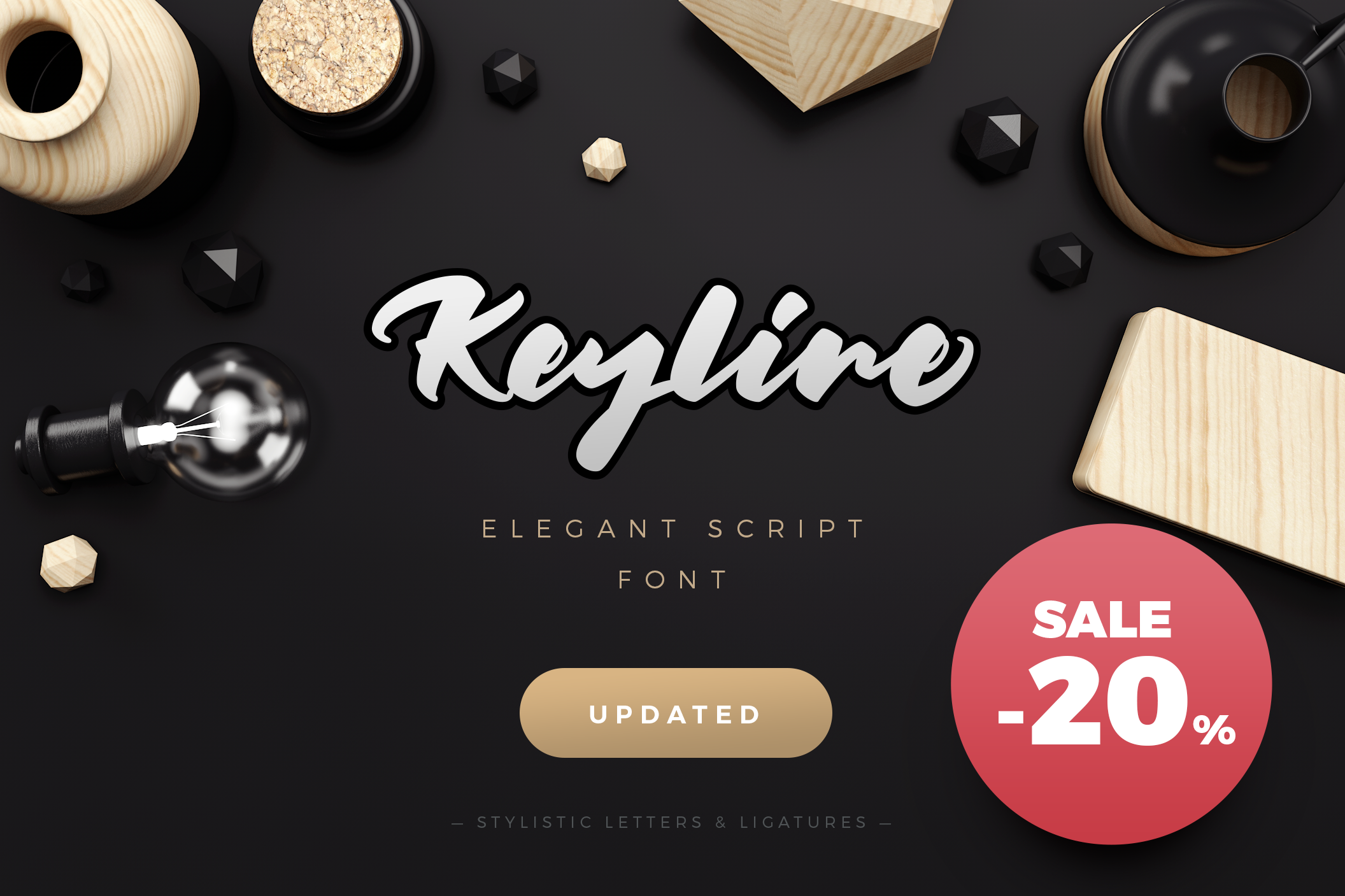
Keyline comes with a full set of upper and lower case characters - giving you the extra freedom to turn your text into authentic custom-made hand lettering.
Keyline font Includes a large range of glyphs including numerals, punctuation & multilingual support.